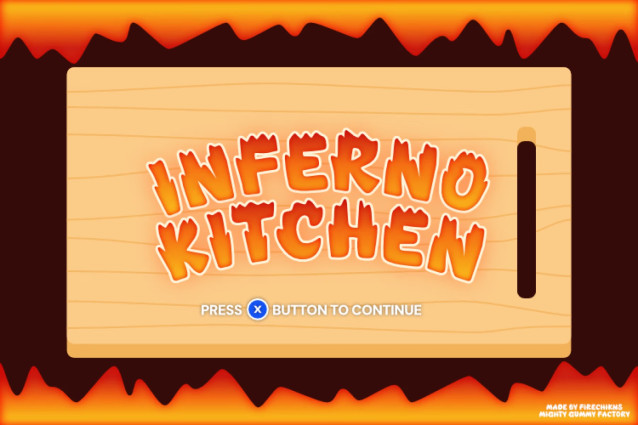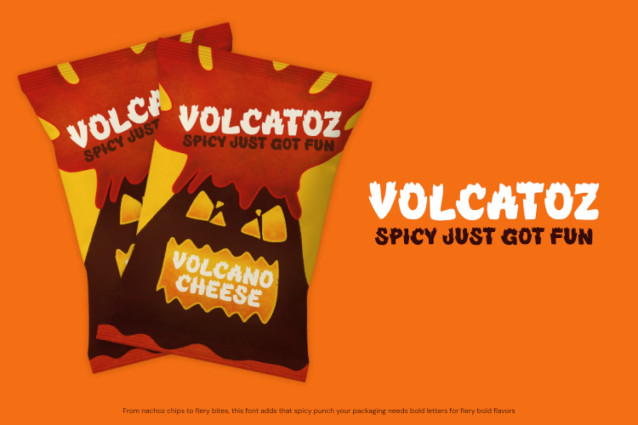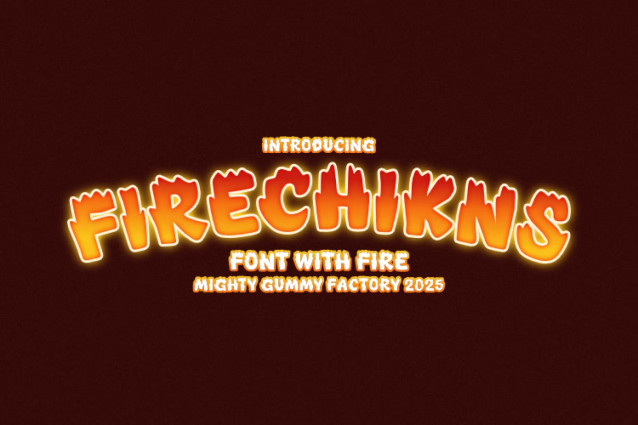
MGF Firechikns Font
MGF Firechikns Font a bold, blazing display font bursting with fiery flair! Whether you’re branding a hot sauce, crafting sizzling social posts, or designing for kids and comics, this font turns up the temperature with a perfect blend of fun, fire, and flavor.